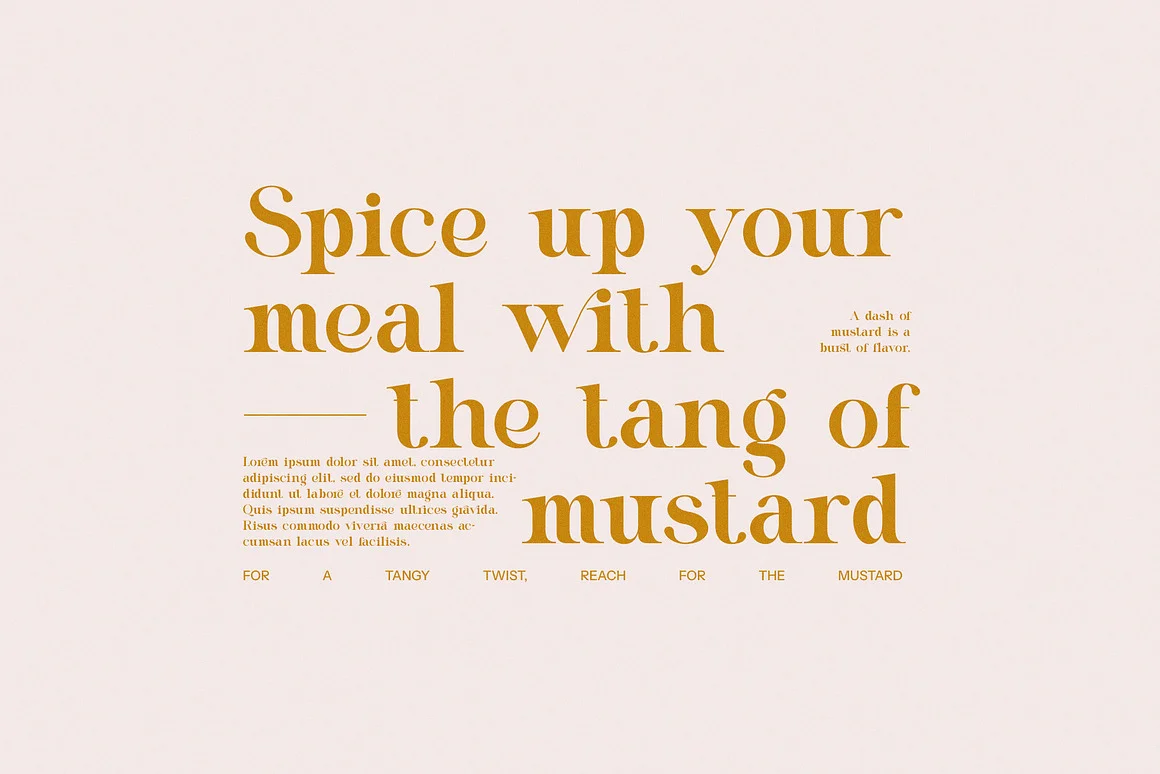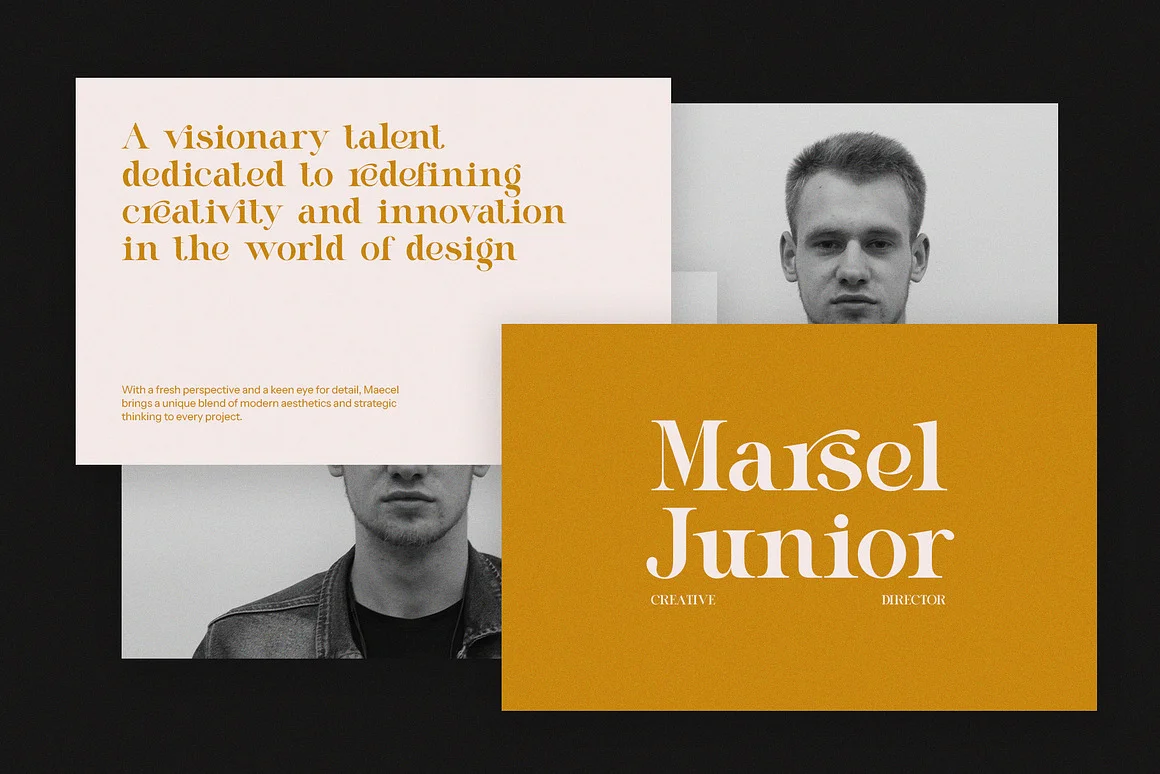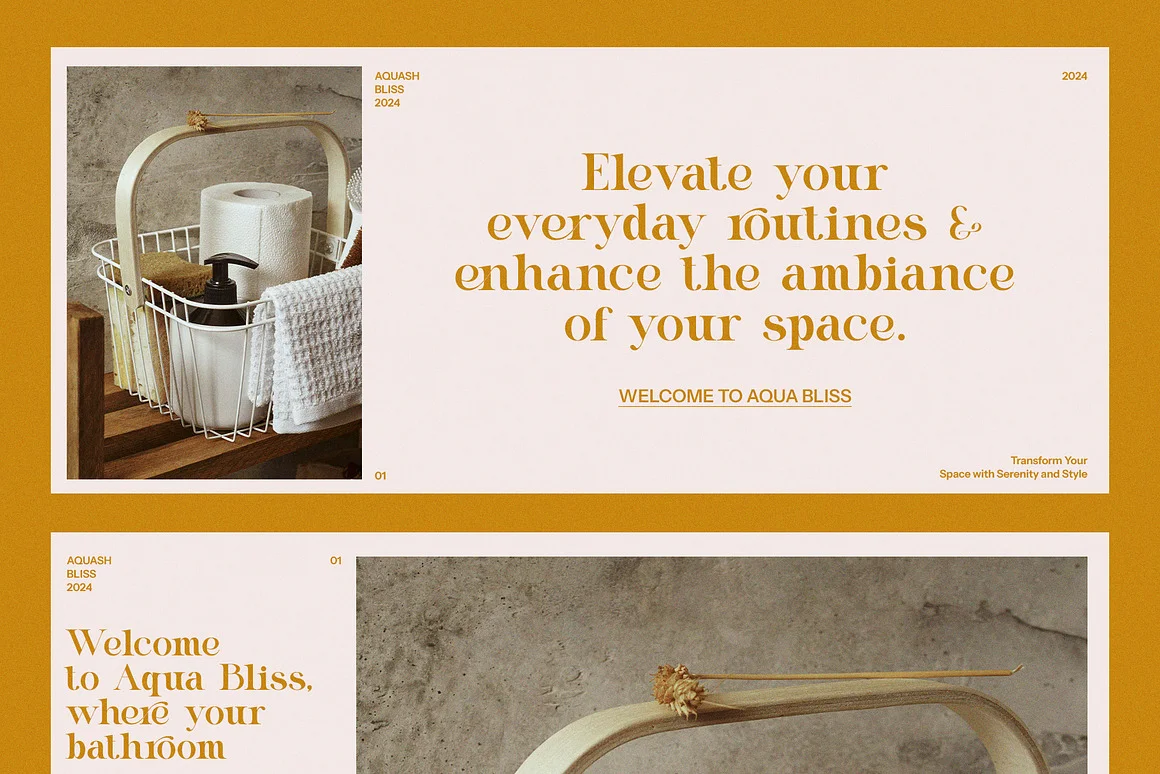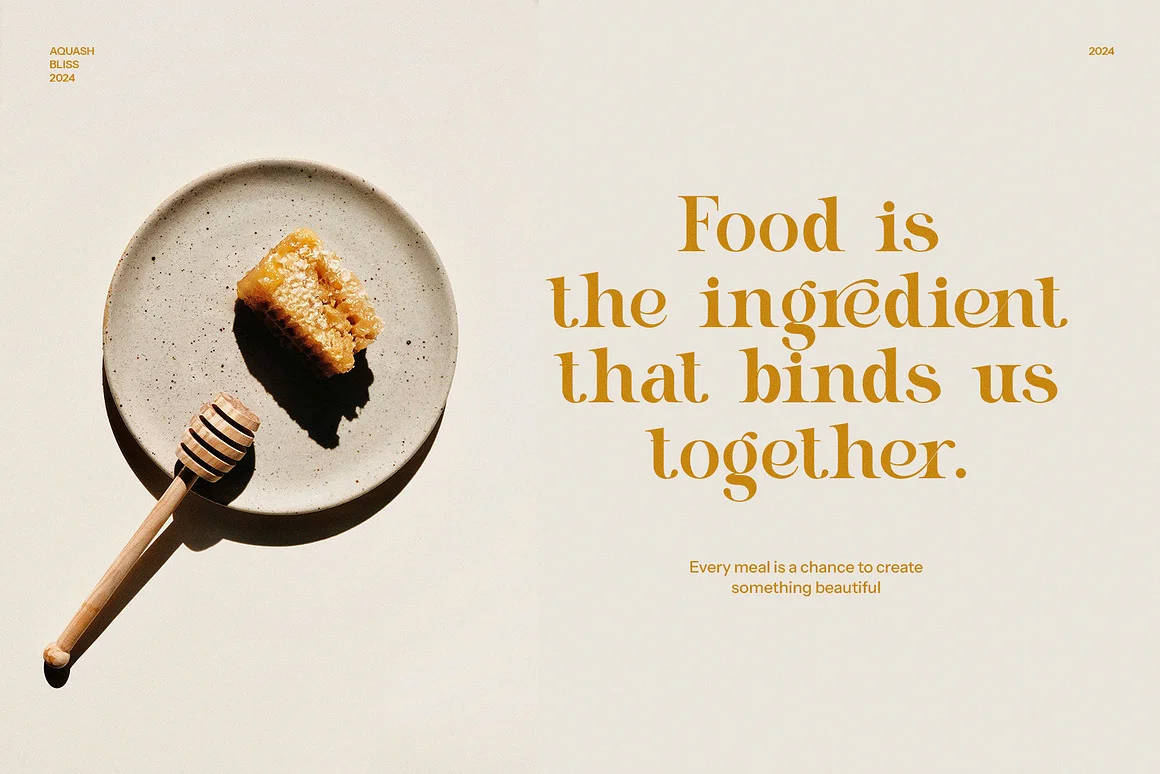
Meragi Modern Serif Font
Meragi Modern Serif is a carefully designed typeface that brings a refined aesthetic to any creative project.
Common applications include business cards, posters, web headers, advertising materials, book covers, and corporate identity systems.